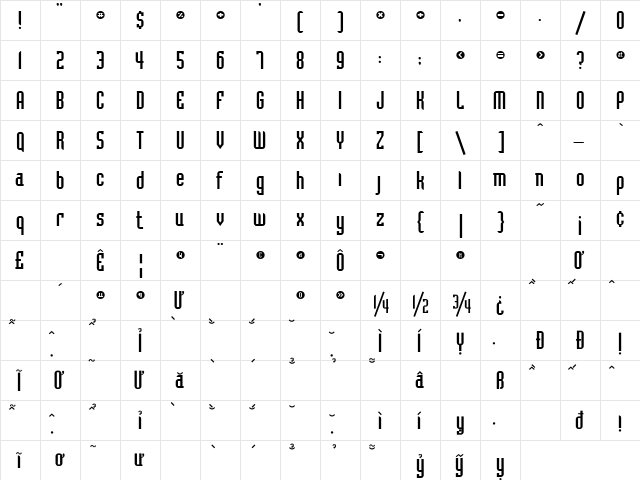
HP-Bedrock Regular
Design Context for HP-Bedrock Typeface
HP-Bedrock offers clean, dependable letterforms without strong stylistic allegiance, making it a practical choice for designers who need flexibility.